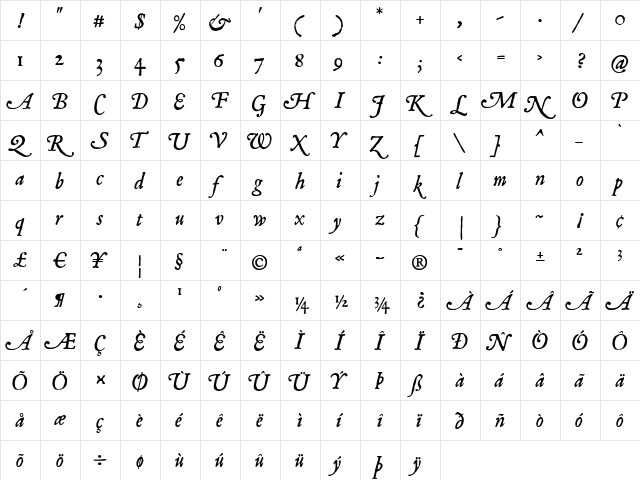
Mayflower Italic Regular
Design Context for Mayflower Italic Typeface
Mayflower Italic is a composed and adaptable typeface that performs quietly and consistently across a wide range of design contexts. The slanted form adds forward momentum and visual energy.
Pro Tip: Try Mayflower Italic for annotation and caption copy alongside an upright companion — the contrast in angle creates a dynamic but ordered typographic system.